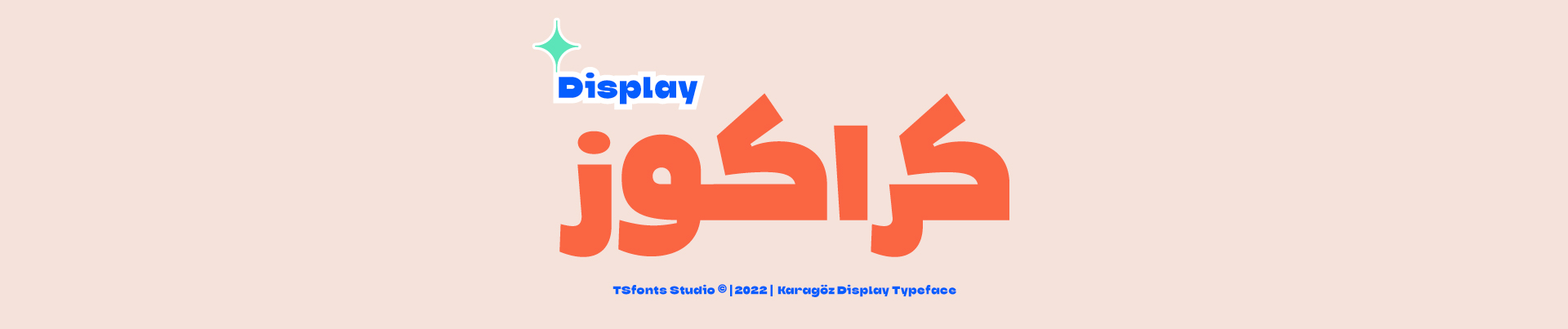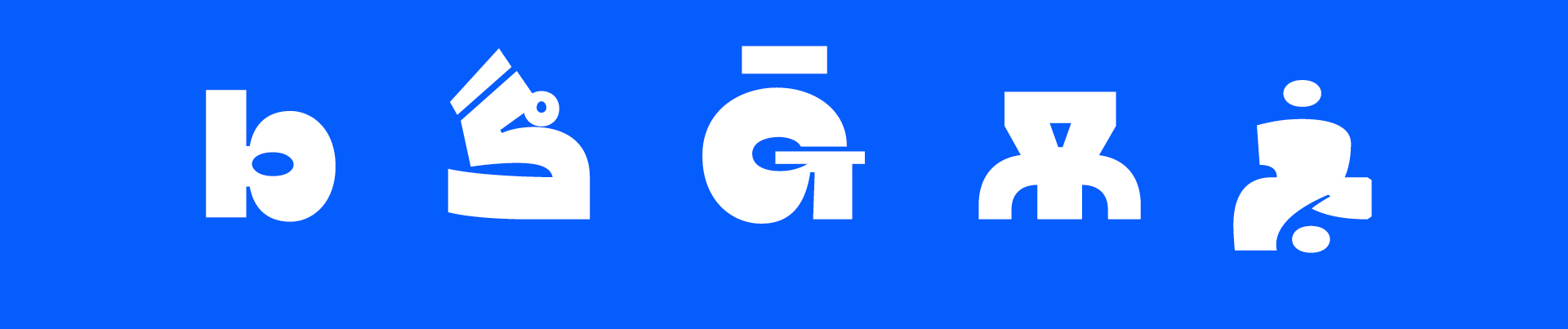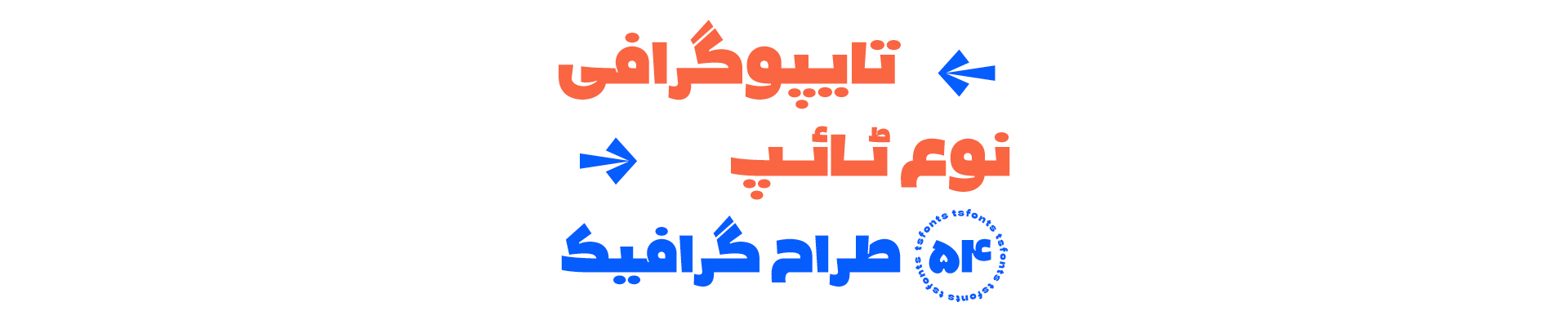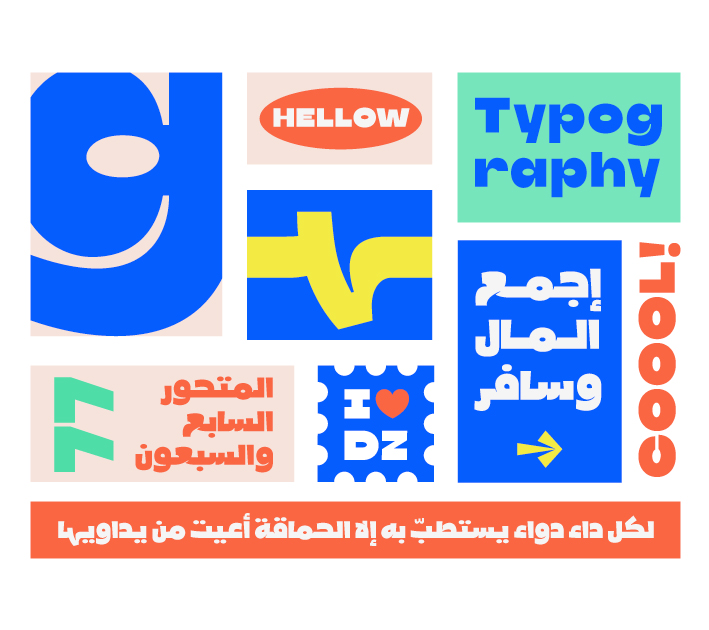
About Karagoz Font
Introduction:
Karagoz is a playful and fun display typeface that is strong. It is designed to be bold and large. Karagoz is perfect for video games, cartoons, t-shirts, children’s books, captions, headlines, and posters.
Weights and Languages:
It consists of 1 Weight. It supports Latin, Arabic, Persian, and Urdu.
Usage:
Karagoz Font is used in headlines, posters, websites, social media, and visual identities.
Designing & Developing:
TSfonts Type Studio
Tarek Alsawwa